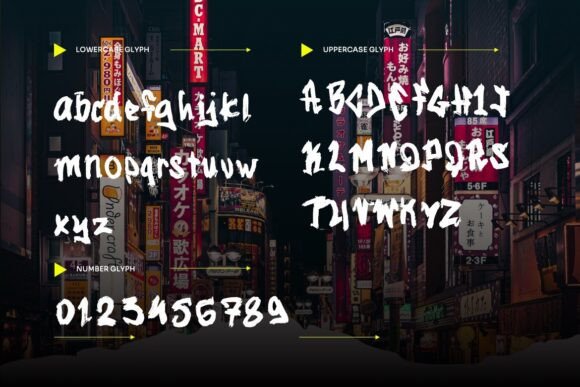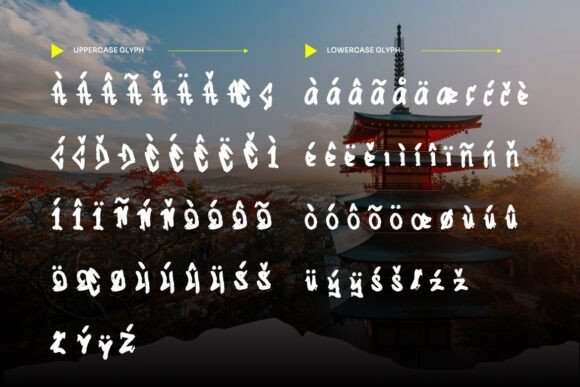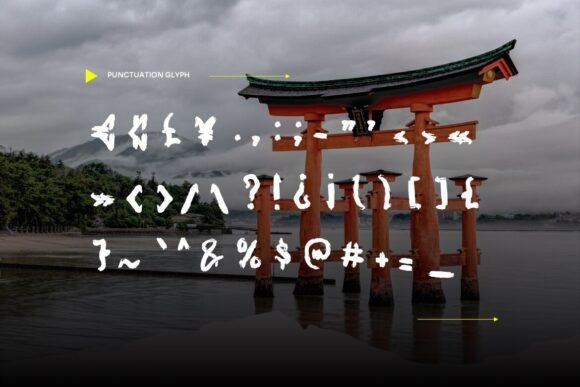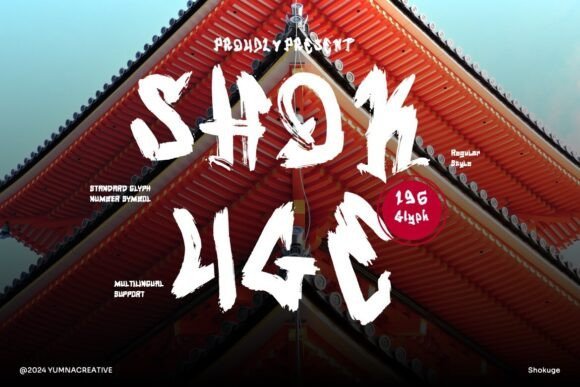
Introduction to Shokuge Font
The Shokuge Japanese Brush is a traditional brush used in Japanese calligraphy and painting.
It has soft bristles that allow for smooth, flowing strokes Ideal for creating beautiful characters or artwork, it helps artists achieve delicate and precise details.
Shokuge Font offers exceptional quality and versatility, making it a valuable addition to your design toolkit. Whether you’re creating for personal projects or commercial use, Shokuge Font delivers professional results.